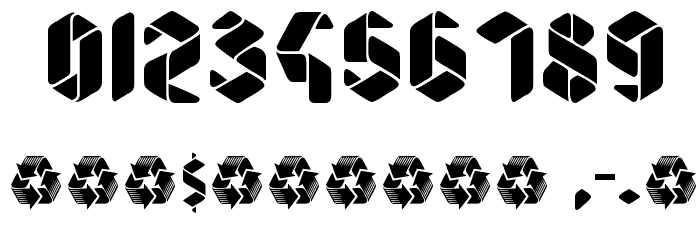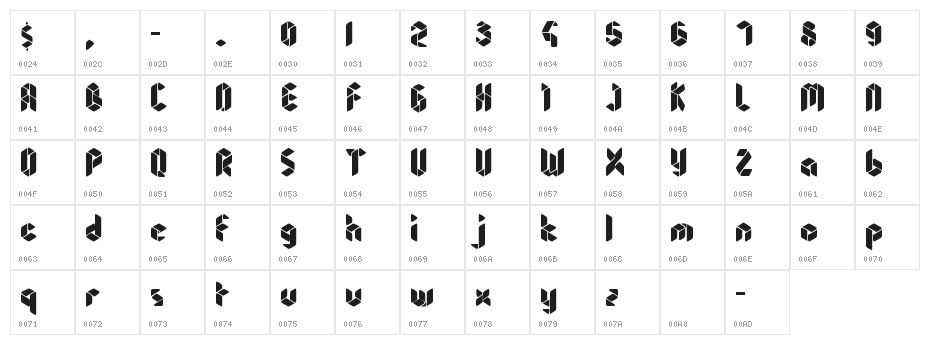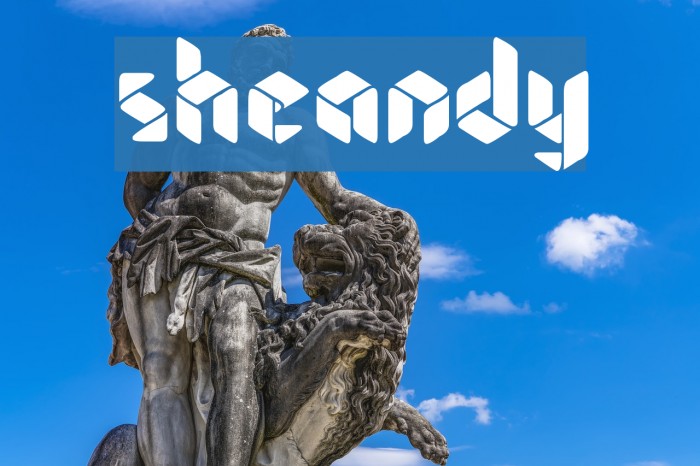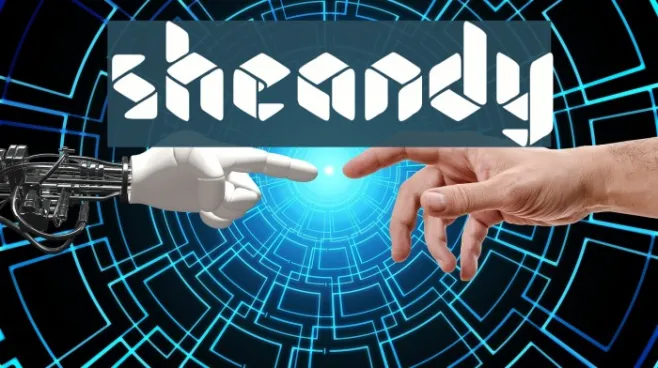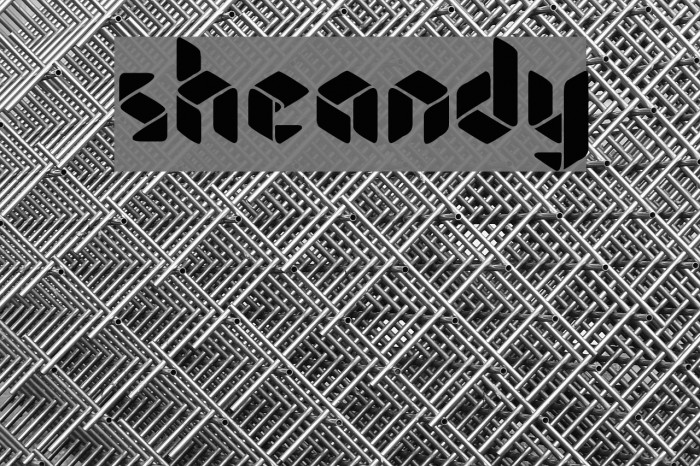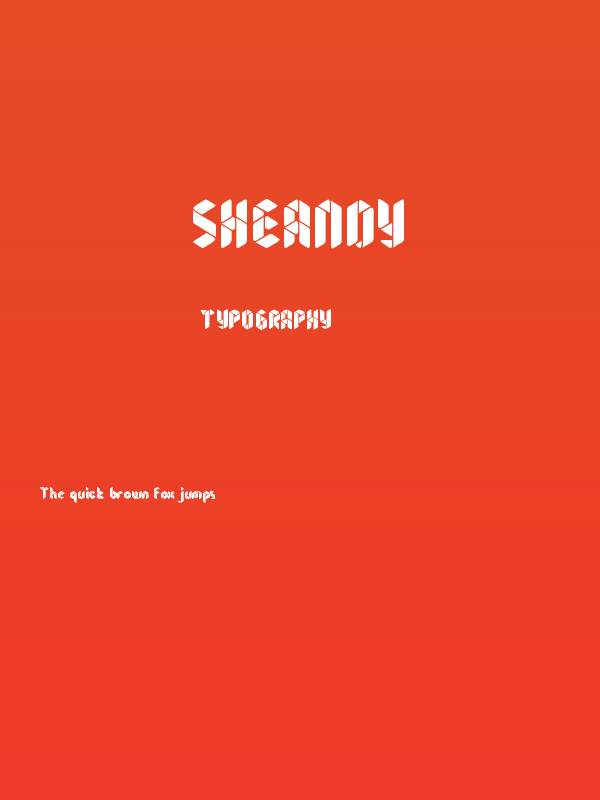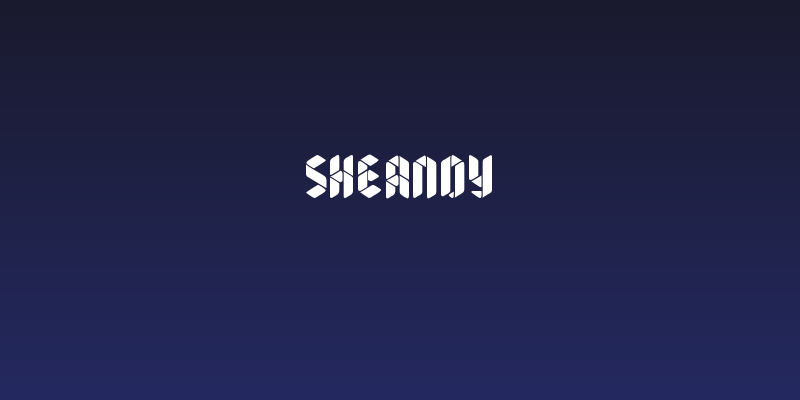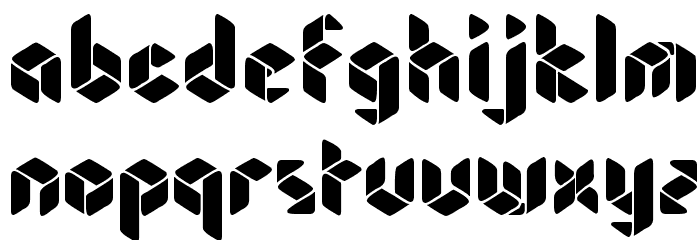
sheandy Font
sheandy Description
This font features a bold, geometric design with a modern and futuristic aesthetic. Each character is constructed from angular shapes, creating a sense of depth and dimension. The use of negative space within the letters adds a unique visual interest, making it stand out in any design. The uppercase and lowercase letters maintain a consistent style, with sharp edges and a blocky appearance. Numbers and special characters follow the same design principles, ensuring uniformity across all elements. This font is ideal for projects that require a strong, impactful visual presence.
| Proposed Projects | Ideal for branding, posters, video game graphics, and futuristic-themed designs. |